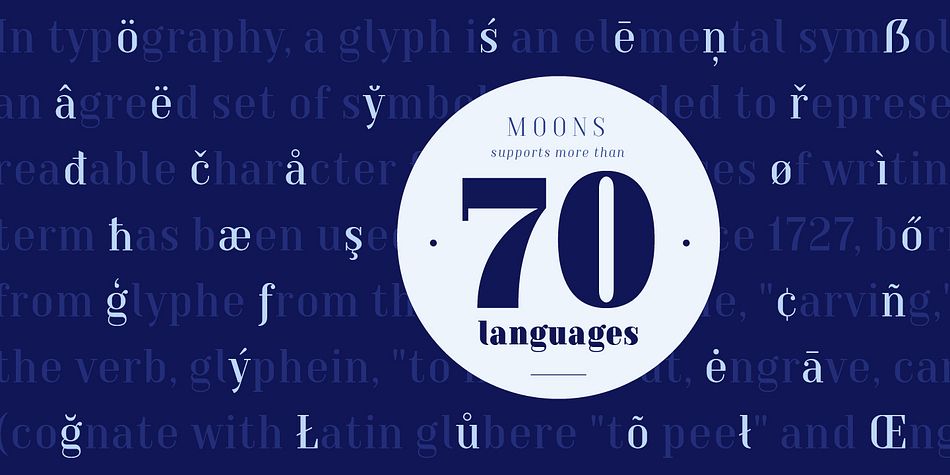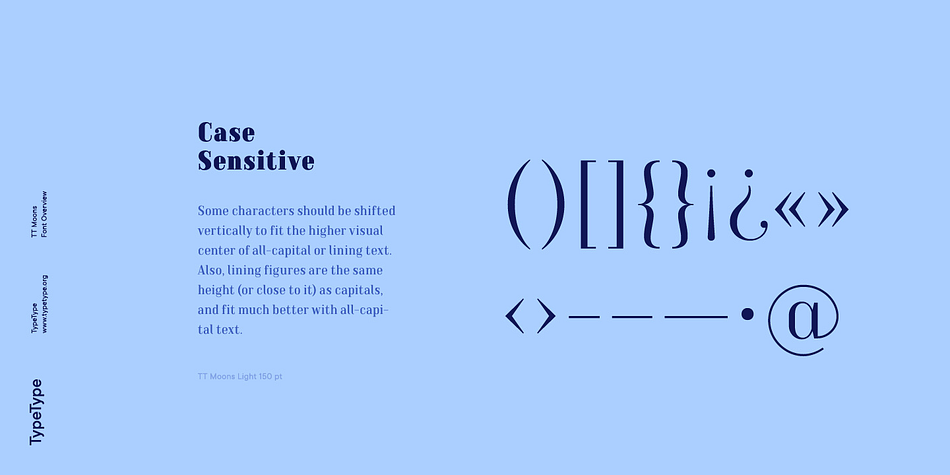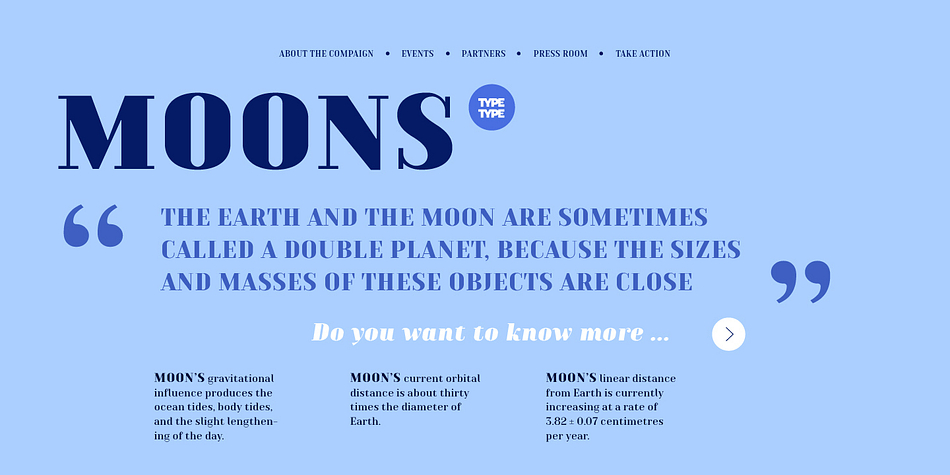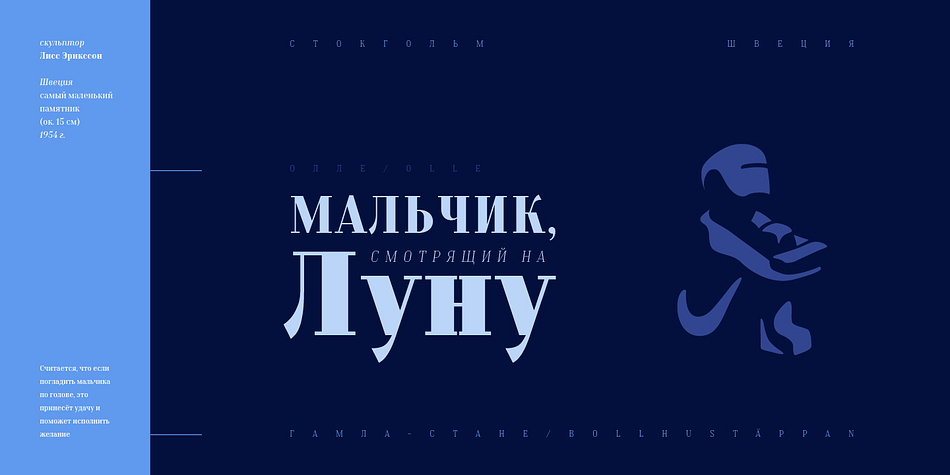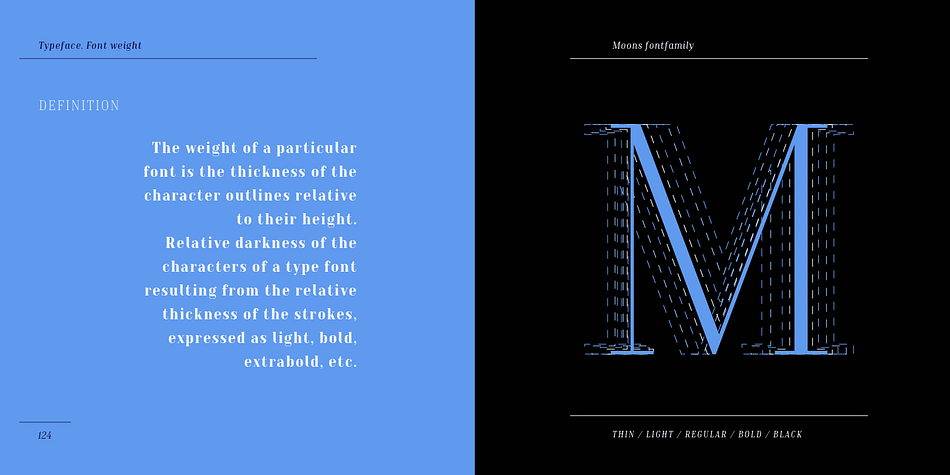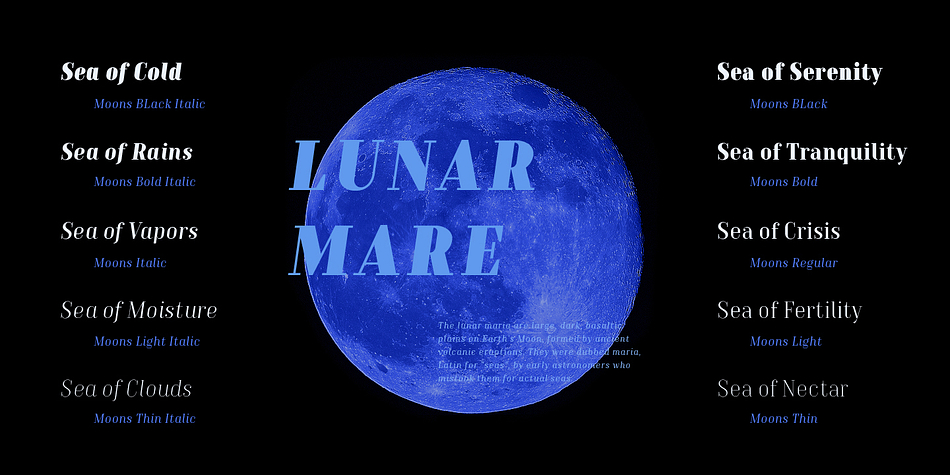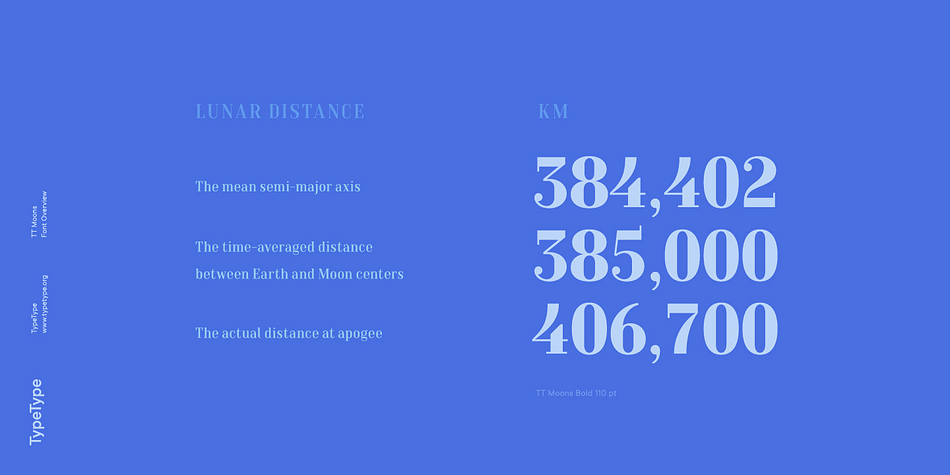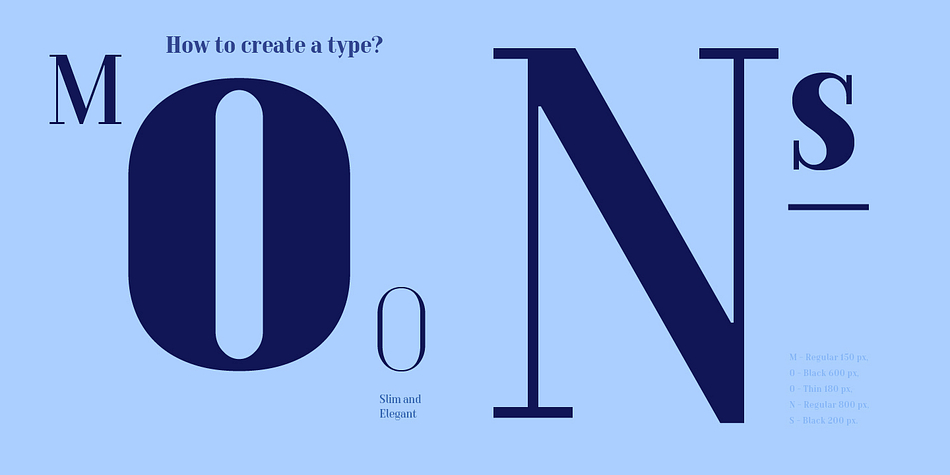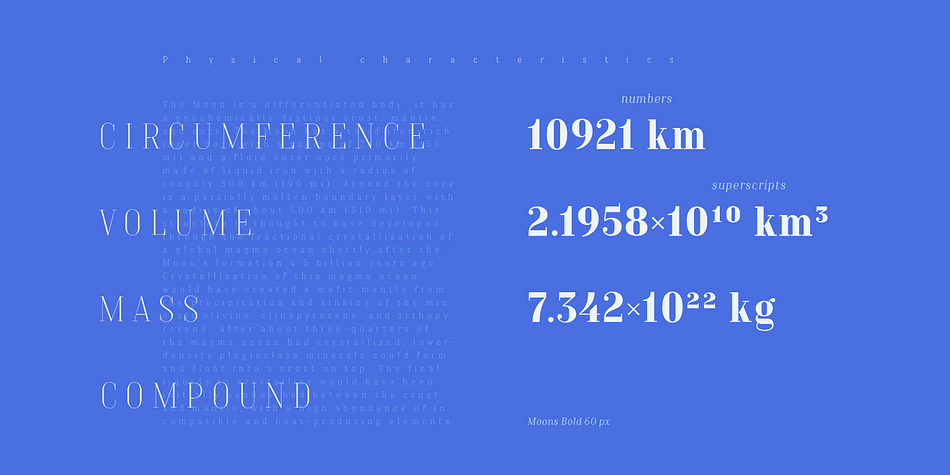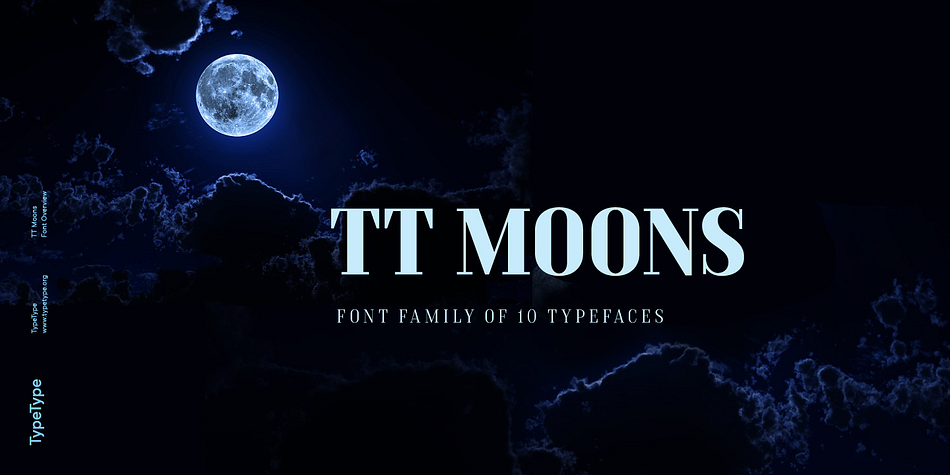
Designed by Ivan Gladkikh, TT Moons is a serif font family. This typeface has ten styles and was published by Typetype.
TT Moons update 1.1
What’s new.
• Case Sensitive Forms
• Tabular Figures
• Fractions
• Numerators
• Denominators
• Superiors
• Scientific Inferiors
TT Moons is a slim and high contrast serif. This font family works especially smart in classic design themes. TT Moons is a glyptal modern typeface. The ideal application range for this typeface is magazines, books and newspaper layout.
Thanks to its narrow proportions and 5 weights (Thin, Light, Regular, Bold, Black), TT Moons perfectly fits into any contemporary digital design, such as interactive and product design, editorial and corporate web design. This font family is the real work helper and your wild card when you need to combine contemporary and classic styles.